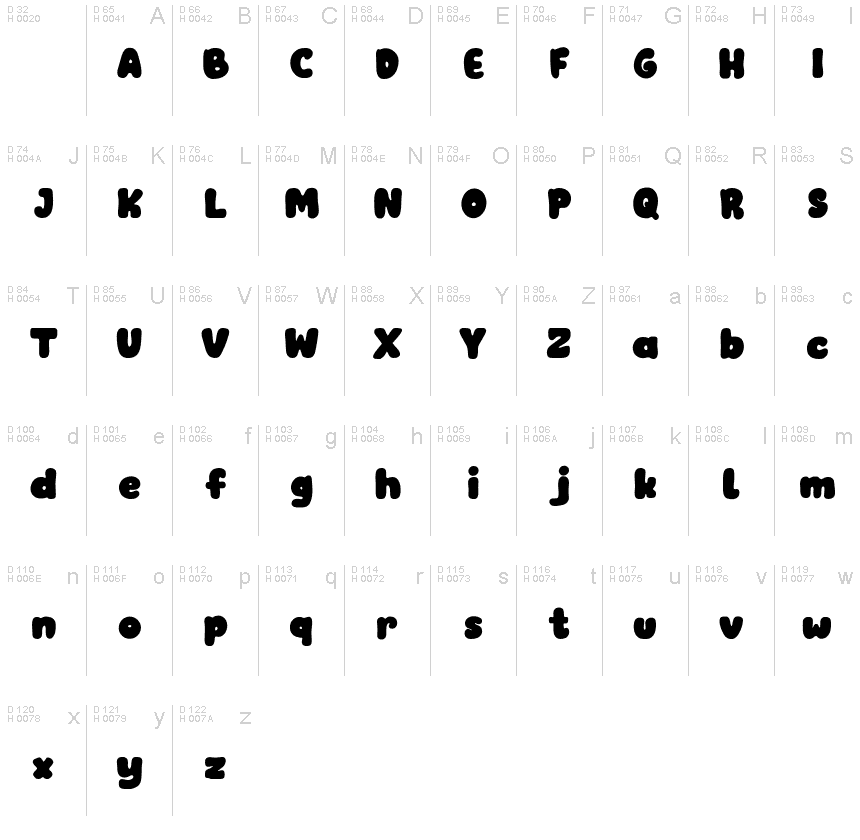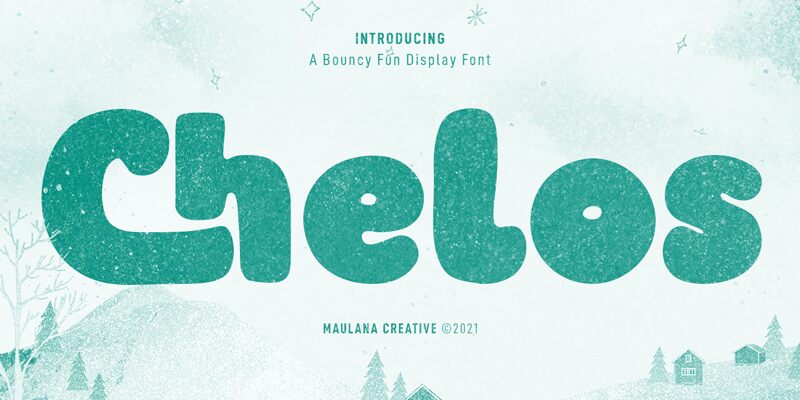
Chelos Free Regular
Introducing Chelos, a bold and cartoon-style display font from Maulana Creative. Its unique design is perfect for creating eye-catching headlines, logos, posters and advertisements. Chelos can also be used to add a playful touch to any design project!